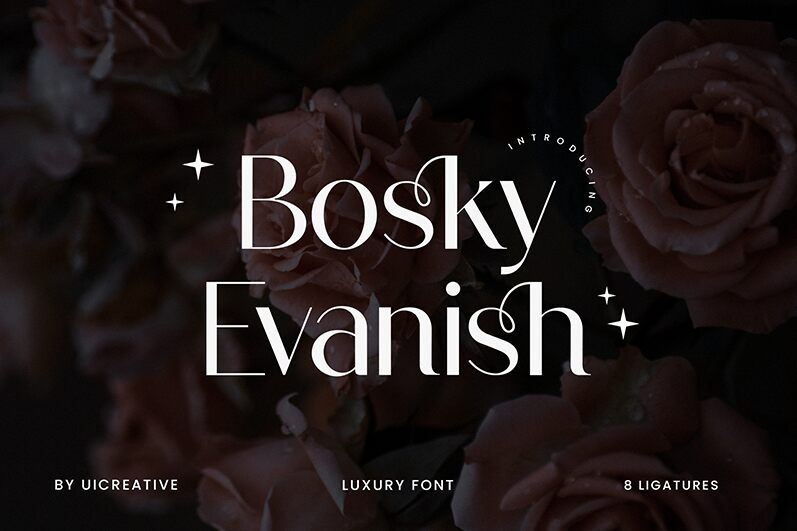
BoskyEvanish
The Bosky Evanish font, crafted by UI Creative, exudes a bold and refined elegance. Its sleek lines and sharp angles create a captivating visual presence, instantly commanding attention. The font's balanced proportions and harmonious character spacing contribute to a sense of sophistication and timelessness, making it a compelling choice for a wide range of design applications.
This versatile font excels in both formal and contemporary settings, seamlessly adapting to diverse design needs. Its strong typographic personality lends itself beautifully to headings, titles, and impactful branding elements, while its legibility and clean aesthetic make it a versatile option for body text and user interfaces. The Bosky Evanish font's versatility and distinctive flair make it a valuable asset for designers seeking to elevate their projects with a touch of refined sophistication.